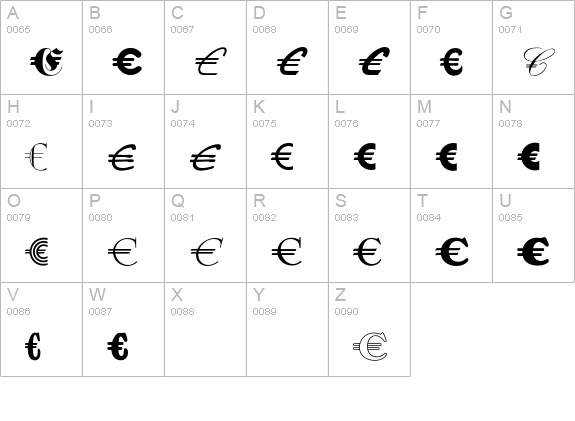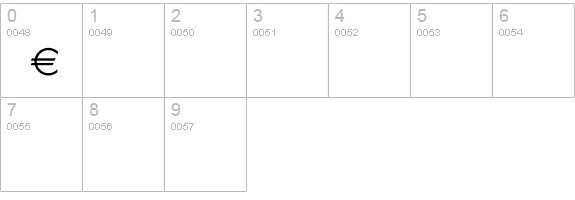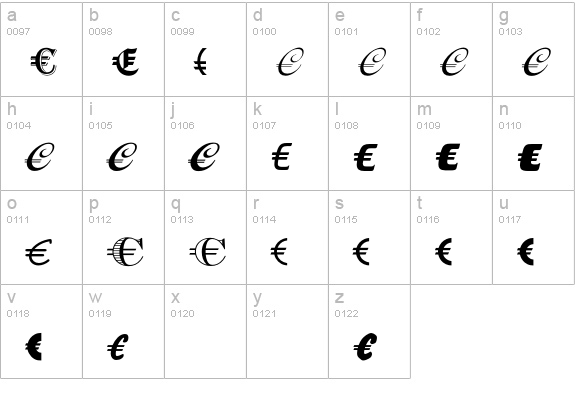
EuroDecoEF-One Font Details
EuroDecoEF-One is a stunning display font that effortlessly combines elegance and sophistication with a touch of retro charm. With its unique Art Deco-inspired design, this font is perfect for creating eye-catching headlines, posters, and logos that demand attention. The sharp angles and geometric shapes of EuroDecoEF-One give it a modern yet timeless appeal, making it a versatile choice for a wide range of design projects. The best part? EuroDecoEF-One is available for free download at FontsMarket.com. This means you can add this stylish font to your collection without breaking the bank. Whether you're a seasoned designer looking to add a fresh new font to your toolbox or a hobbyist searching for the perfect typeface for your next project, EuroDecoEF-One is sure to impress with its sleek lines and bold presence. Download your free copy today and let your creativity soar with EuroDecoEF-One font.